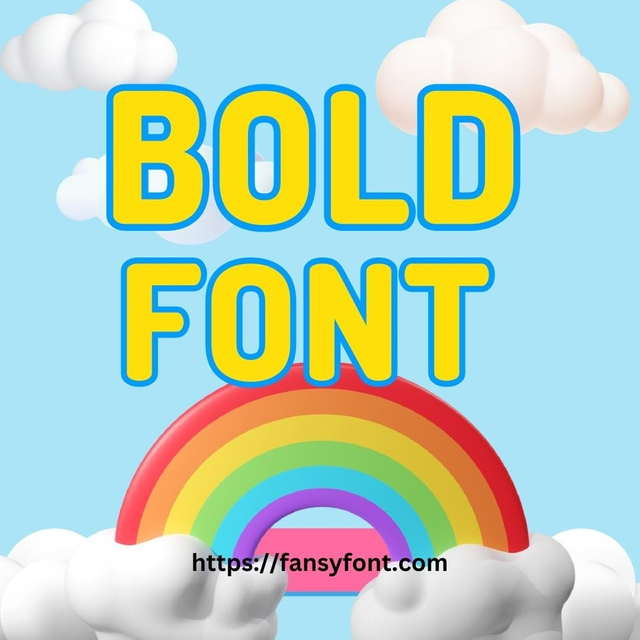
Fancy Font Use Particular Project
Choosing a specific fancy font for a particular project is a meticulous and thoughtful process that hinges on several key considerations. The font choice is pivotal in conveying the project’s essence, capturing its mood, and communicating its message effectively. First and foremost, the nature of the project itself serves as a guiding compass. For instance, a
bolds and impactful font might be favored for a promotional poster or an attention-grabbing banner, infusing the design with a dynamic energy that demands immediate notice. On the other hand, a more elegant and cursive script might be apt for a formal invitation or a luxury brand identity, evoking sophistication and refinement.
Another critical factor is the target audience. Understanding who will engage with the project enables a font choice that resonates with its preferences and expectations. Opting for a modern sans-serif font might ensure relevance and relatability if the audience is youthful and contemporary. Conversely, an older and more traditional audience might appreciate a classic serif font that exudes timelessness and familiarity.
The project's theme or subject matter is equally instrumental in font selection. For instance, a whimsical decorative font might be ideal for a children's book cover, while a distressed or grunge-style font could amplify the edginess of a music festival poster. A project centered around elegance and luxury could benefit from a swirly and ornate font, channeling opulence and grandeur.
Moreover, considering the project's overall visual design and layout is crucial. The font must harmonize seamlessly with other design elements, enhancing cohesion and readability. Contrast and legibility play a significant role; a bold and highly stylized font might be compelling for headlines, but a more understated font with good legibility might be preferable for lengthy paragraphs or body text.
Lastly, the emotional impact that a font imparts must be considered. Different fonts evoke feelings – from excitement and playfulness to seriousness and contemplation. A bold and thick font might evoke a sense of strength and authority, while a delicate script font might evoke a sense of intimacy and charm.